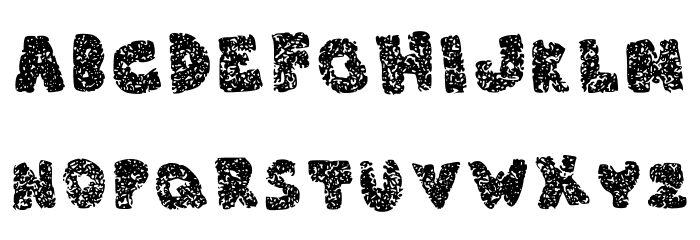
Lleno Destrozado Regular Font
This font features a unique, distressed texture that gives each character a rugged, worn appearance. The letters are bold and have a playful, chaotic style, with uneven edges and a hand-drawn feel. The texture within each letter resembles a pattern of scattered debris or torn paper, adding a dynamic and energetic vibe. Despite its roughness, the font maintains good legibility, making it suitable for attention-grabbing designs. Its distinctive style is perfect for projects that require a bold statement or an artistic touch.
A bold, distressed font with a rugged, hand-drawn texture.
- Proposed Projects: Ideal for posters, album covers, street art designs, and creative branding projects.